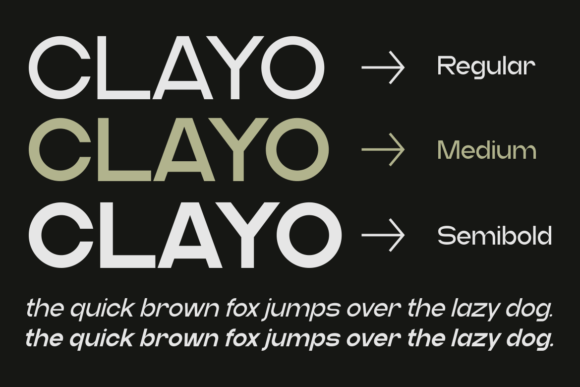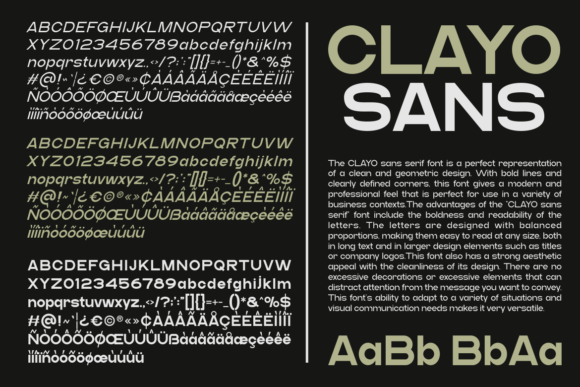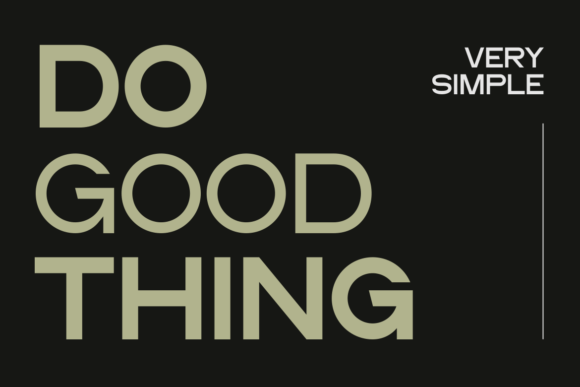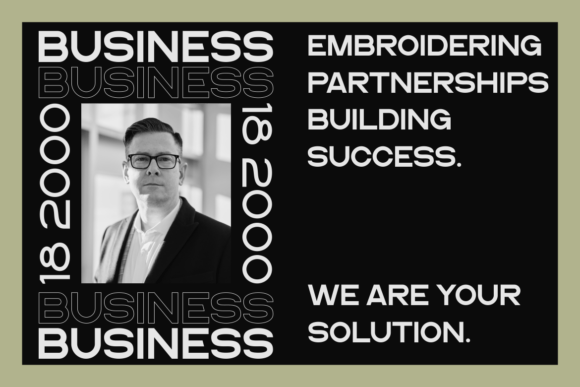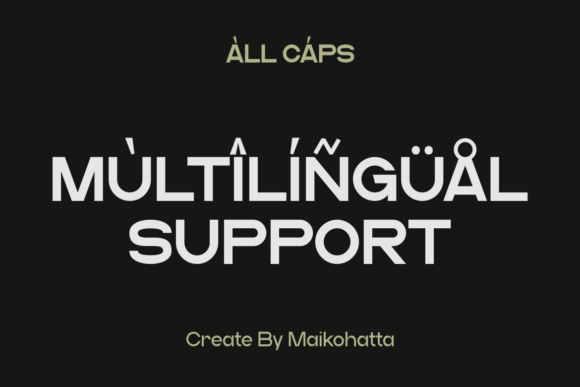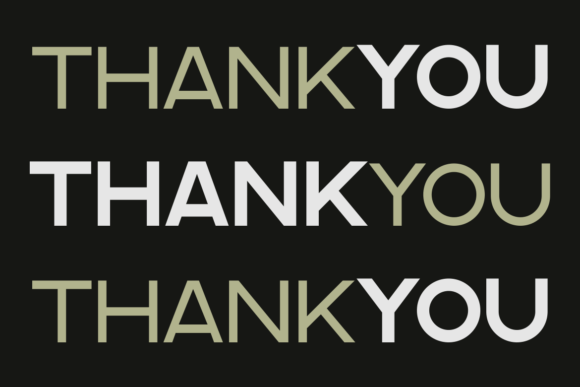
The Ultimate Guide to Clayo Font: Elevate Your Design with Versatility
I’ll never forget the time I was working on a branding project for a trendy new coffee shop. My client wanted a clean, modern look that would appeal to the young and hip. As I scrolled through font after font, nothing seemed quite right. That was until I stumbled upon Clayo Font. Its sleek lines and versatile styles instantly caught my eye, and I knew I had found the perfect fit. In this article, I’ll share my love for Clayo Font, its features, and how to make the most of it in your designs.
An Honest Review of Clayo Font
- ✨ Versatility: Clayo Font comes in various styles, making it a highly versatile choice for graphic design and clean, modern text displays.
- ✅ Clean and Modern: The font’s sleek lines and simple shapes give it a clean and modern look that’s perfect for a wide range of projects.
- 💡 Easy to Read: Clayo Font is highly legible, even at small sizes, making it ideal for body text and captions.
While Clayo Font is an excellent choice, there are a few things to keep in mind:
- 🤔 Limited Expressiveness: As a sans-serif font, Clayo Font may not be the best choice for projects that require a lot of personality or whimsy.
- ⚠️ Overuse: With its clean and modern look, it’s easy to overuse Clayo Font. Make sure to balance it with other design elements to avoid a cluttered look.
- Experiment with different styles and OpenType features, such as Stylistic Alternates and Glyphs, to add visual interest to your text.
- Choose Clayo Font from the font dropdown menu and experiment with different styles and OpenType features, such as Swashes and Ligatures.
The Story Behind Clayo Font
Clayo Font was designed with the goal of creating a clean and modern sans-serif font that’s highly versatile and easy to read. The font’s creator drew inspiration from the geometric shapes and clean lines of modern architecture, with the aim of creating a font that’s both beautiful and functional.
Q: What is Clayo Font?
Clayo Font is a sans-serif font family available in various styles, designed for use in graphic design and clean, modern text displays.